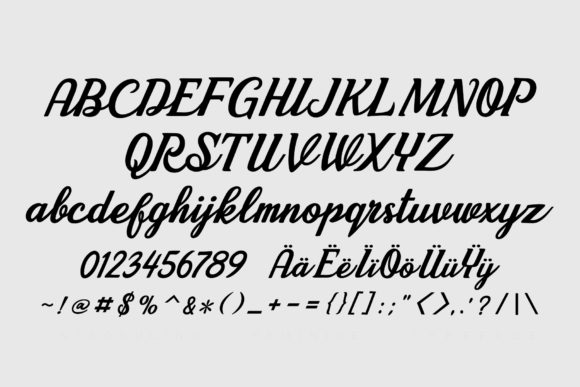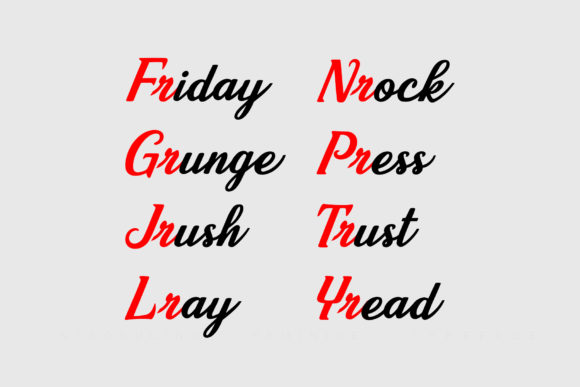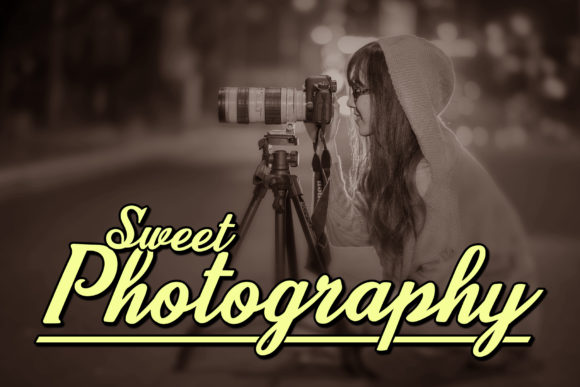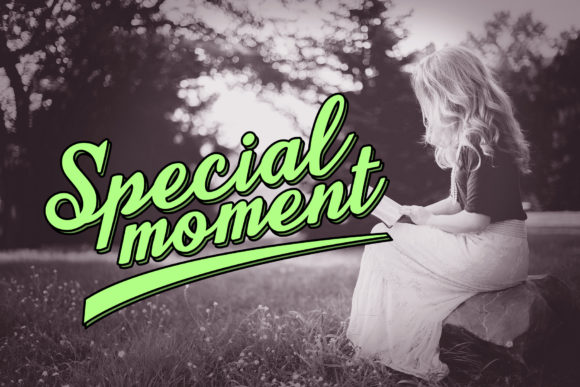
Introducing Cherry Angela Script Font: The Sweetest Addition to Your Design Projects
Are you a designer or crafter looking for a font that adds a touch of sweetness to your projects? Look no further than Cherry Angela Script Font. This pretty and delicate script font is perfect for adding a feminine and elegant touch to your designs. In this article, we’ll explore the features and benefits of Cherry Angela Script Font, and how you can use it to take your design projects to the next level.
What is Cherry Angela Script Font?
Cherry Angela Script Font is a beautiful, hand-crafted script font that exudes elegance and sophistication. Its delicate strokes and curly flourishes make it perfect for designs that require a touch of whimsy and romance. Whether you’re creating posters, branding materials, or any other design project, Cherry Angela Script Font is sure to add a sweet and feminine touch.
Key Features of Cherry Angela Script Font
• Delicate and Elegant: Cherry Angela Script Font features delicate strokes and curly flourishes that give it a sophisticated and elegant look.
• Hand-Crafted: This font is hand-crafted, which means that each letter is carefully designed to ensure a unique and personal touch.
• Script Style: Cherry Angela Script Font is a script font, which makes it perfect for designs that require a touch of elegance and sophistication.
• Versatile: This font is versatile and can be used for a wide range of design projects, from posters and branding materials to packaging and more.
How to Use Cherry Angela Script Font in Your Design Projects
Cherry Angela Script Font is easy to use and can be incorporated into a wide range of design projects. Here are a few ideas to get you started:
• Poster Titles: Use Cherry Angela Script Font to create beautiful and eye-catching poster titles that grab attention.
• Branding: Add a touch of elegance and sophistication to your branding materials, such as logos, business cards, and letterheads.
• Wedding Designs: Cherry Angela Script Font is perfect for wedding designs, such as wedding invitations, save-the-date cards, and more.
• Packaging: Use this font to add a touch of whimsy and romance to your packaging designs, such as product labels and gift wrapping.
Why Choose Cherry Angela Script Font?
There are many script fonts available, but Cherry Angela Script Font stands out from the rest. Here are a few reasons why:
• Unique and Personal: Cherry Angela Script Font is hand-crafted, which means that it has a unique and personal touch that sets it apart from other fonts.
• Elegant and Sophisticated: This font exudes elegance and sophistication, making it perfect for designs that require a touch of luxury.
• Easy to Read: Despite its delicate nature, Cherry Angela Script Font is easy to read, making it perfect for designs that require a clear and concise message.
Tips for Using Cherry Angela Script Font Effectively
Here are a few tips for using Cherry Angela Script Font effectively in your design projects:
• Use it Sparingly: Cherry Angela Script Font is best used sparingly, as it can be overwhelming if used too much.
• Pair it with Other Fonts: Pair Cherry Angela Script Font with other fonts to create a unique and interesting contrast.
• Experiment with Colors: Experiment with different colors to find the perfect match for your design.
Cherry Angela Script Font is a beautiful and delicate script font that adds a touch of sweetness to any design project. Its elegant and sophisticated look makes it perfect for designs that require a touch of luxury and whimsy. With its versatility and ease of use, Cherry Angela Script Font is a must-have for designers and crafters looking to take their design projects to the next level.